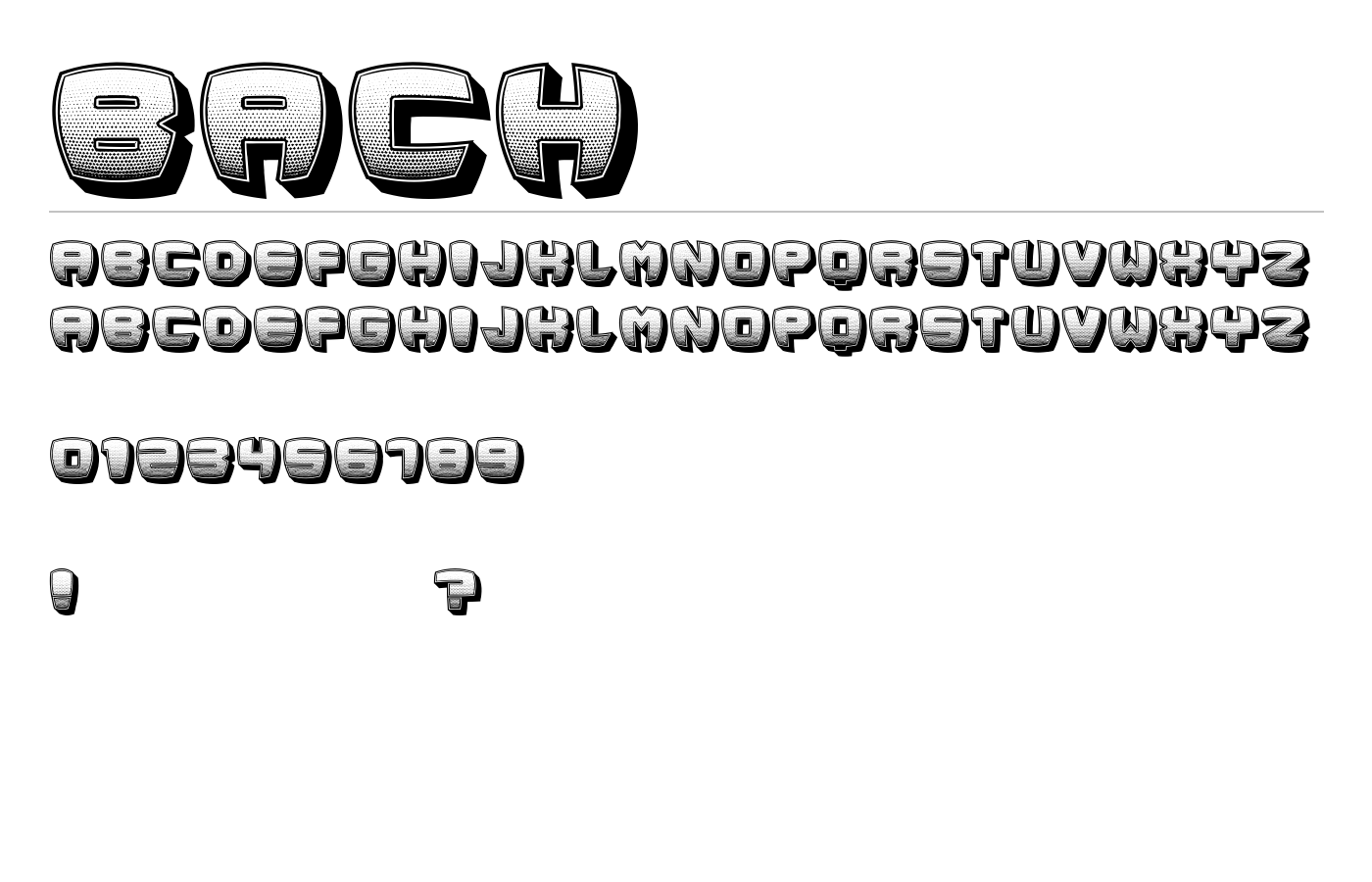
Bach Font is a bold, playful sans serif with a three-dimensional, comic book style that features thick, rounded letterforms and a textured shading effect. Its heavy weight and quirky block shape make it ideal for eye-catching headlines, posters, and branding with a fun, energetic vibe. This font works best where a lively, attention-grabbing display font is needed to convey excitement and personality.
Bach Font
About Bach Font